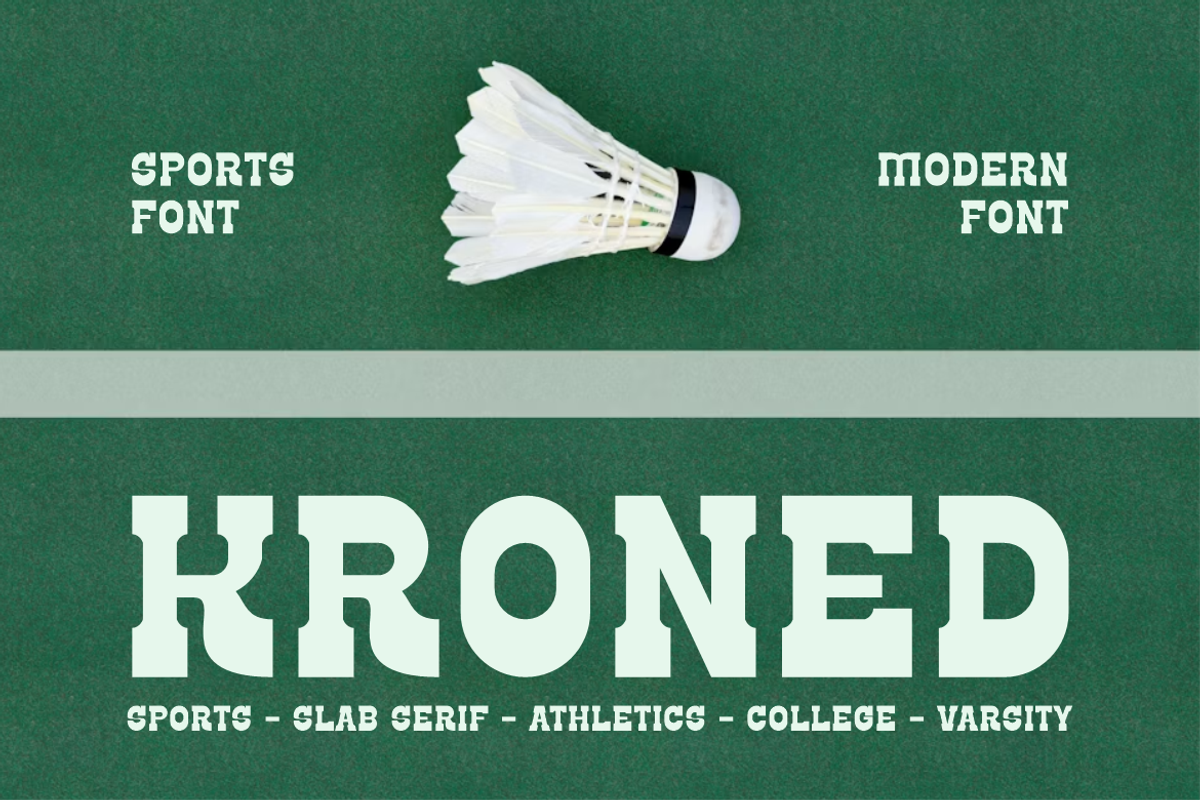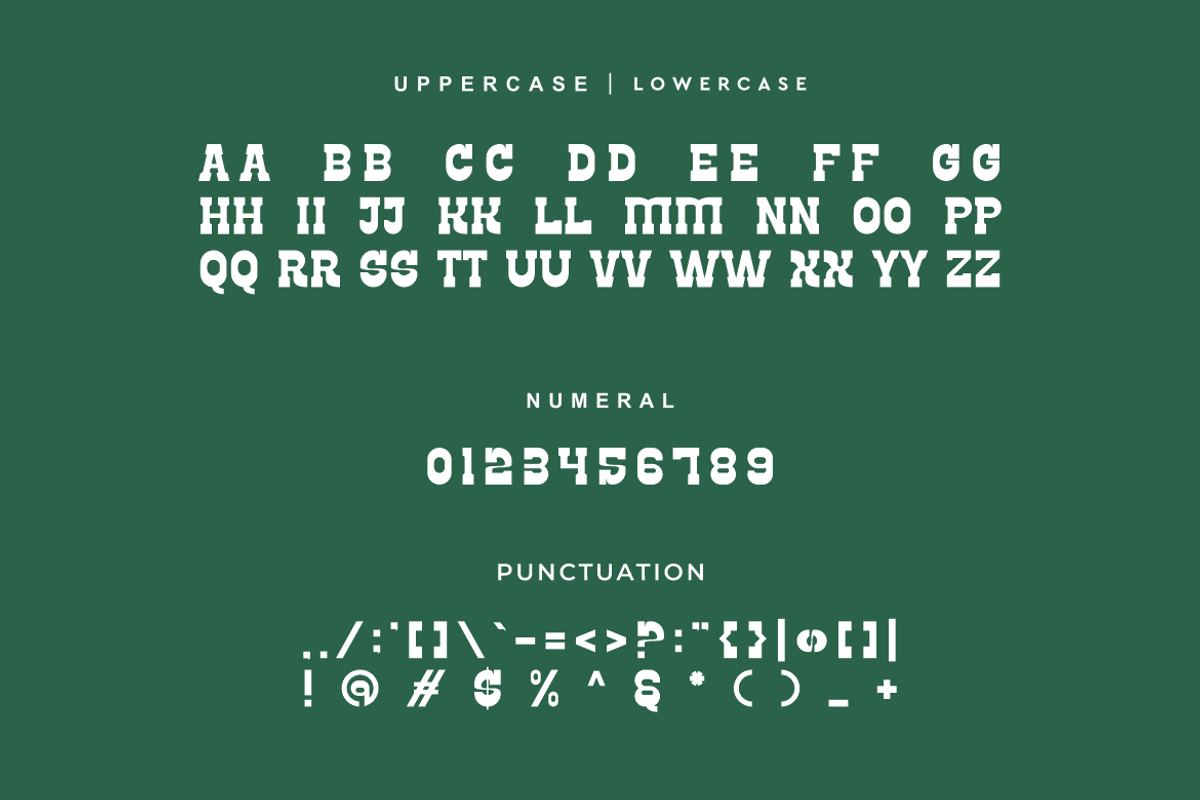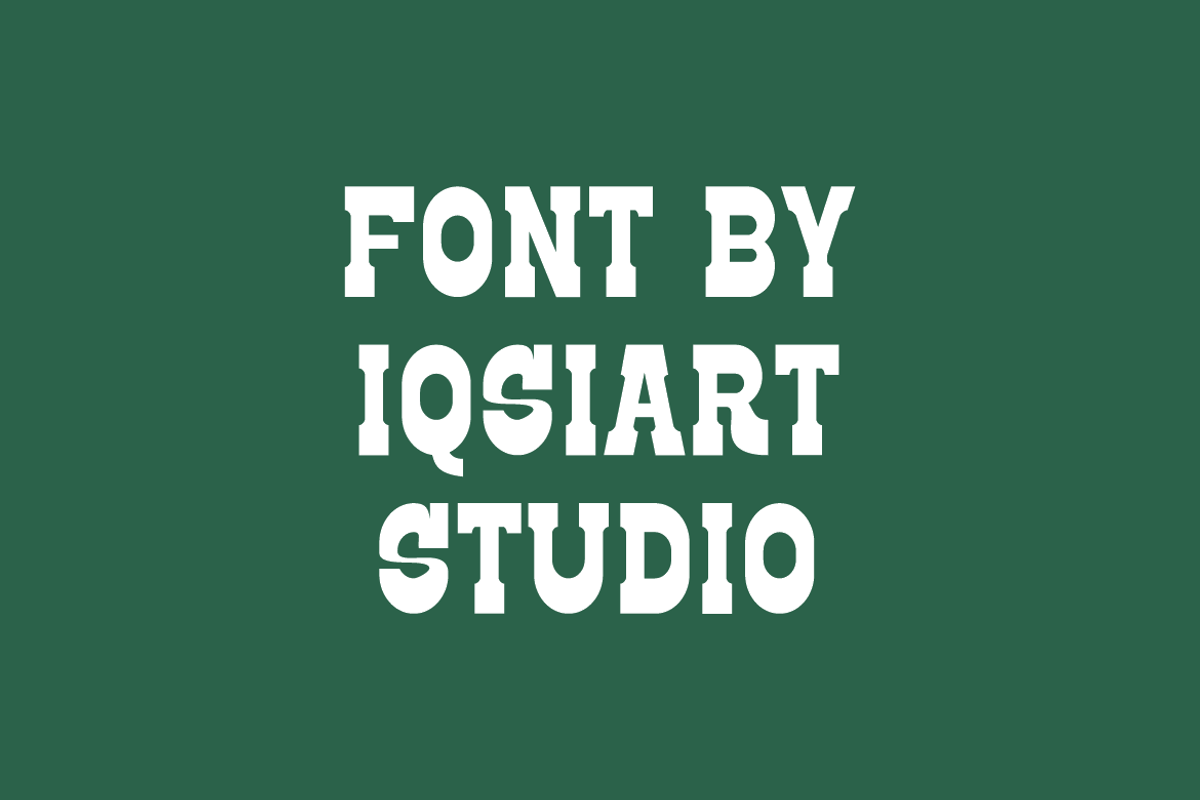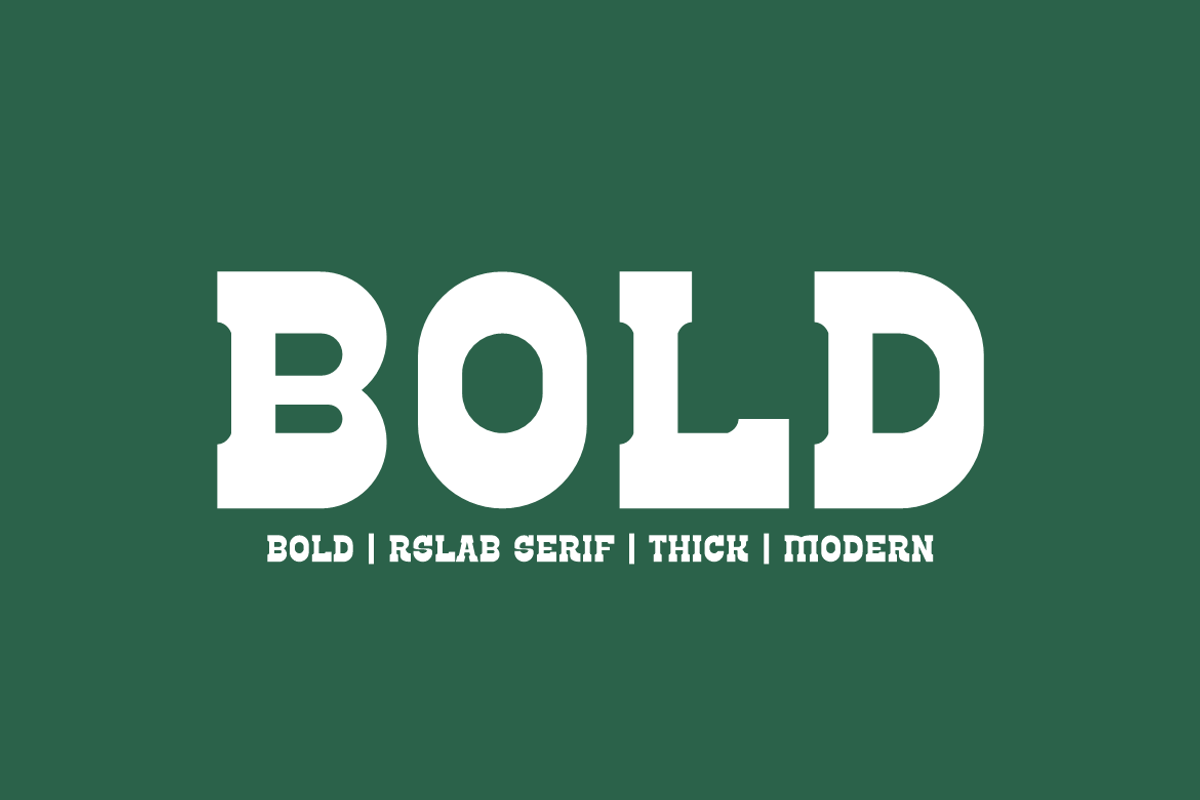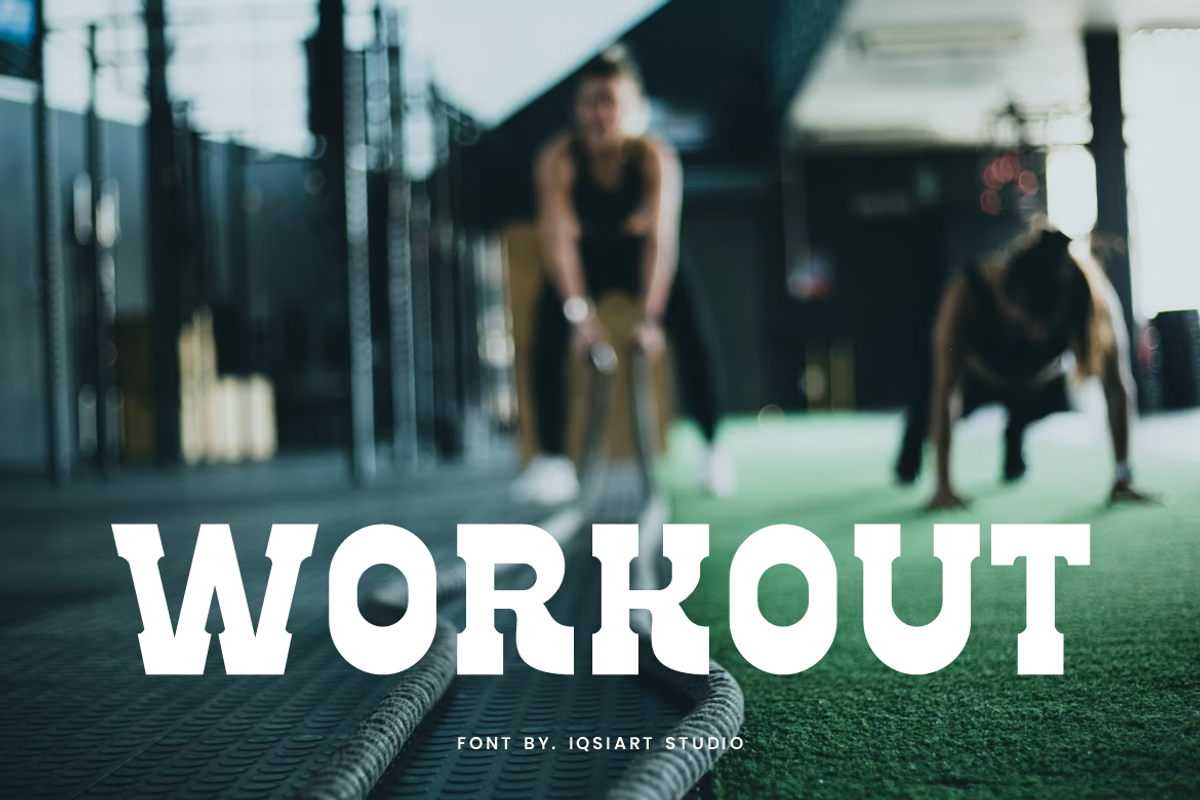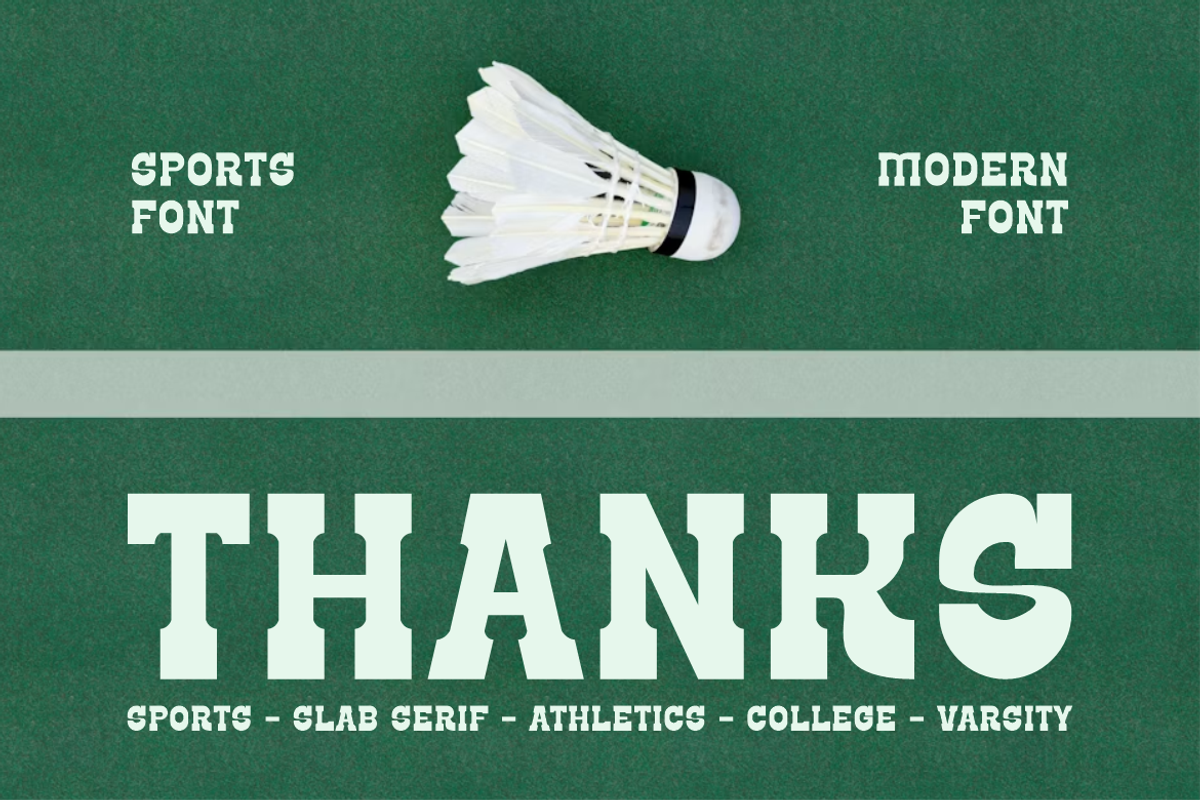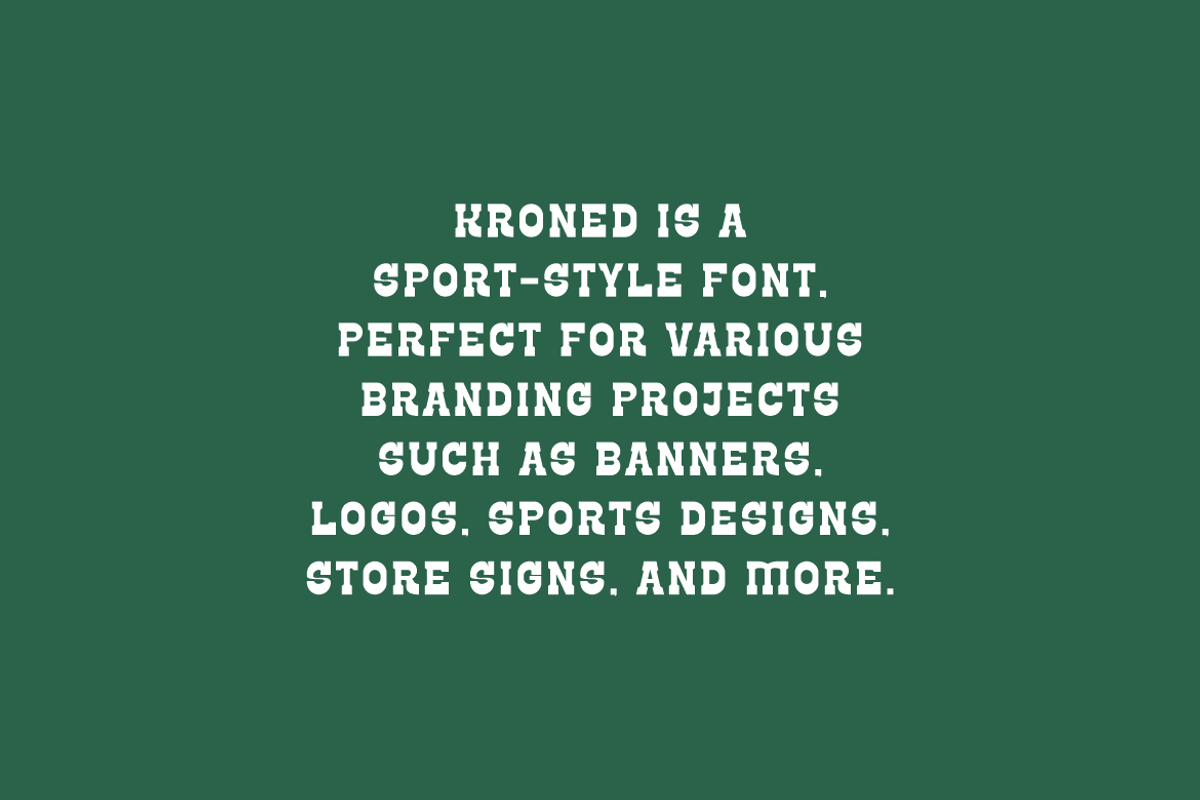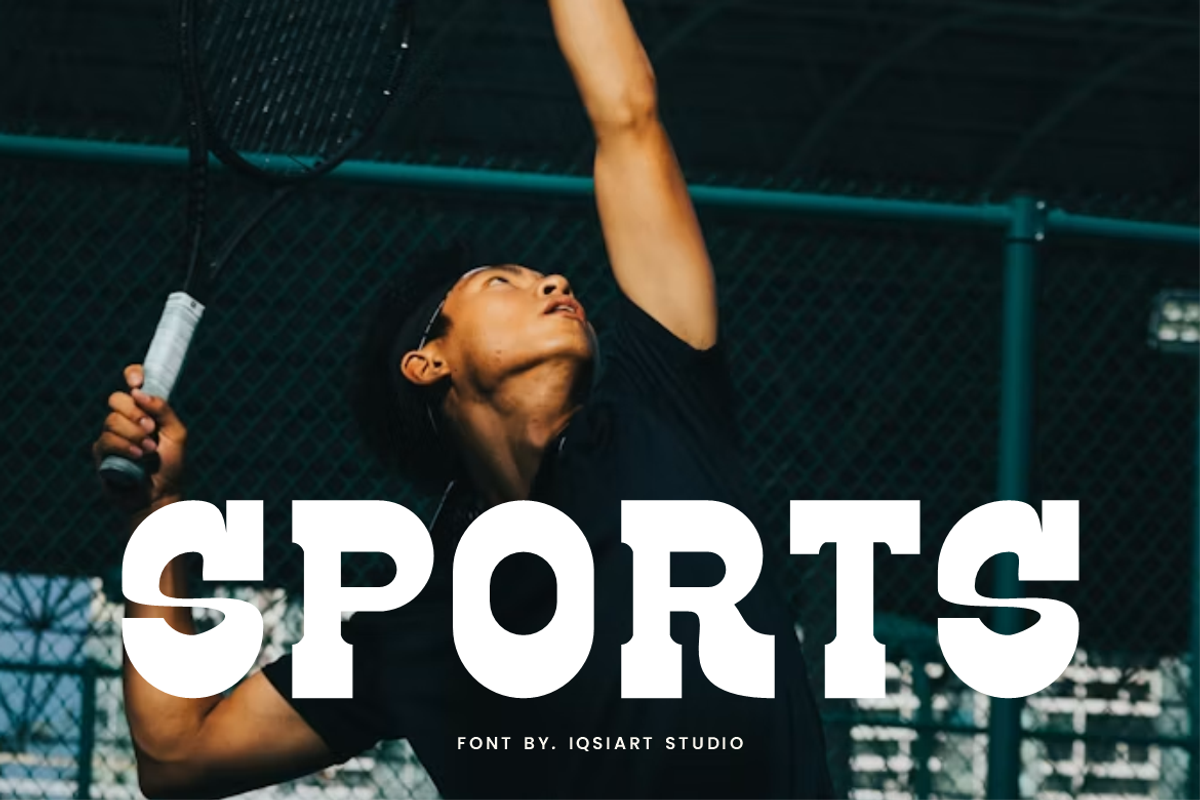
Kroned - Sports Slab Serif Font
Kroned Font is a bold and authentic display typeface
that suits a variety of design needs. We offer a wide range of themes